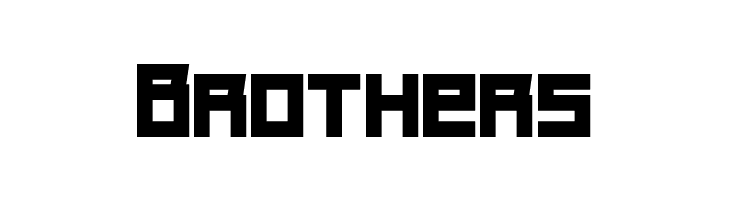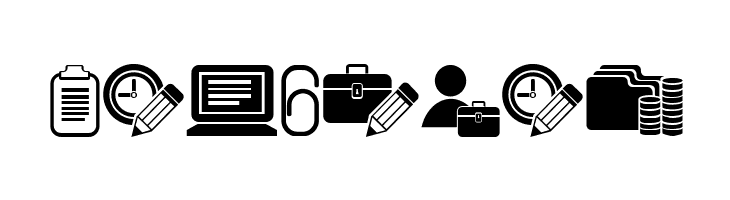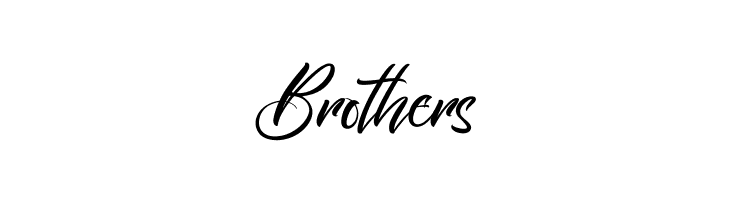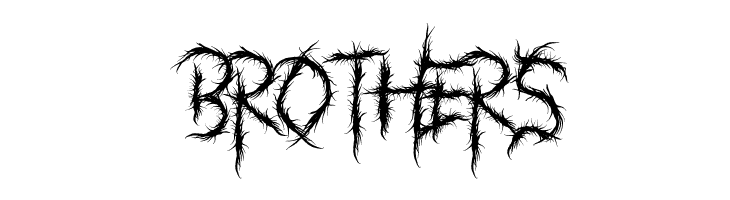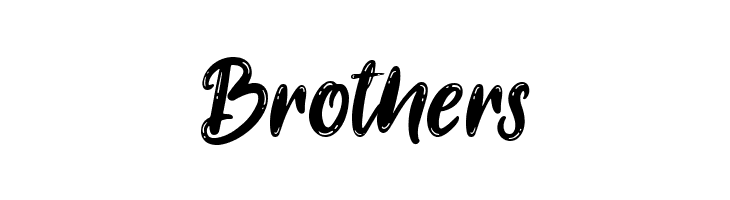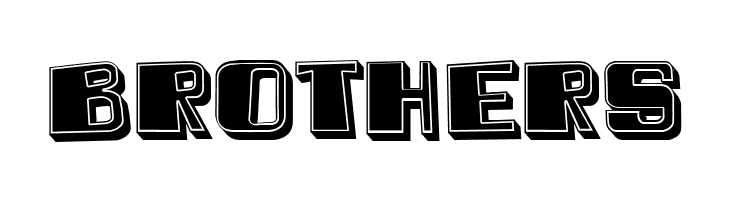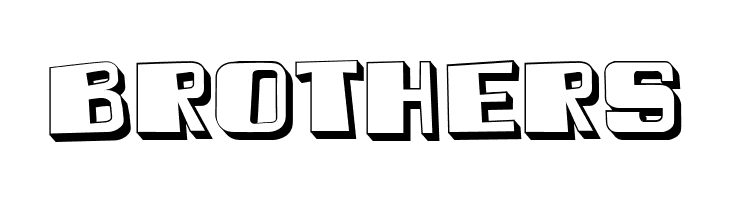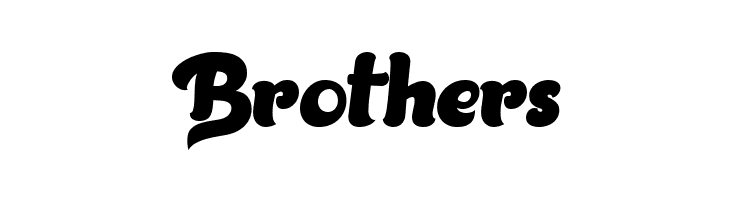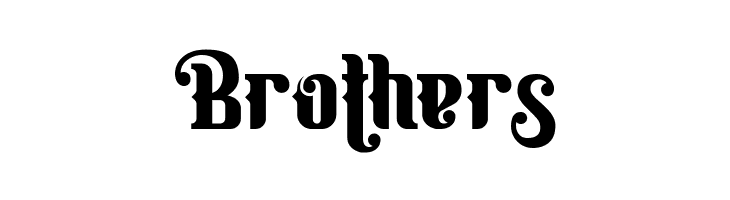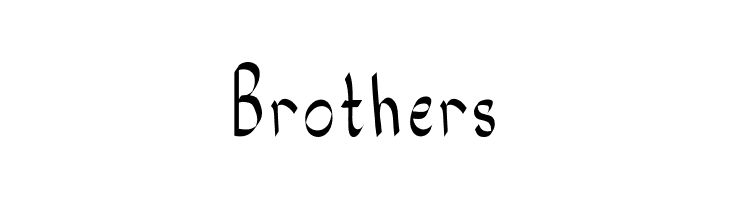
A dynamic script font with elegant, flowing strokes and a modern calligraphic style.
A bold, geometric font with a strong, blocky appearance.
A bold, geometric font with angular shapes and a futuristic aesthetic.
A lively and expressive handwritten font with fluid strokes and playful elegance.
A dynamic and playful handwritten font with fluid strokes.
A bold icon set font with business and finance pictograms.
A thorny, jagged decorative font with an intense and edgy style.
A bold, retro-inspired font with textured diagonal lines and a playful aesthetic.
Bold, geometric pictogram set for prohibition signage.
A whimsical, hand-drawn style font with playful and irregular characters.
A bold, decorative font with stars and stripes, ideal for patriotic themes.
A bold, playful script font with smooth, flowing strokes.
A bold, hollow font with a three-dimensional effect and consistent stroke width.
A bold, three-dimensional font with a shadowed outline for a modern, impactful look.
A bold, brush-style font with dynamic, slanted strokes and sharp angles.
An elegant script font with fluid, graceful strokes and calligraphic flair.
A bold, angular font with a gothic, geometric style.
A playful, bold font with a hand-drawn, whimsical style.
A dynamic, cursive script font with bold, sweeping strokes and elegant flourishes.
A flowing, elegant script font with bold, cursive strokes and artistic flourishes.
A bold, decorative font with vintage-inspired, ornate details.
A bold slab serif font with strong, block-like serifs and uniform width.
A bold, slab serif font with strong geometric shapes and thick strokes.
A bold, italic font with thick strokes and a dynamic, slanted style.
A bold, italic font with a strong slant and modern appeal.
A playful, casual handwritten font with flowing, connected letterforms.
A rugged, distressed font with a stencil-like, vintage appearance.
A bold, handwritten font with a dynamic and casual style.
A bold, dynamic script font with flowing strokes and expressive style.
A bold, handwritten font with a brush-like texture and dynamic style.
A bold, graffiti-inspired font with sharp, angular edges and dynamic styling.
A bold, geometric font with a modern and angular design.
A bold, geometric font with sharp, angular edges and a modern industrial feel.
A bold, dynamic handwritten font with thick strokes and a playful style.
A bold, playful script font with a handcrafted feel.